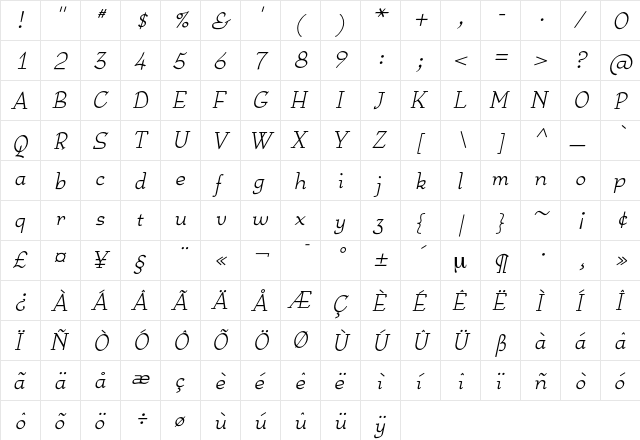
NympheItalic Regular
Design Context for NympheItalic Typeface
NympheItalic is a composed and adaptable typeface that performs quietly and consistently across a wide range of design contexts. Its italic angle brings a sense of urgency and motion to the letterforms.
Pro Tip: Use NympheItalic for emphasis, pull quotes, and subheadings where its slanted energy can add rhythm to the layout.